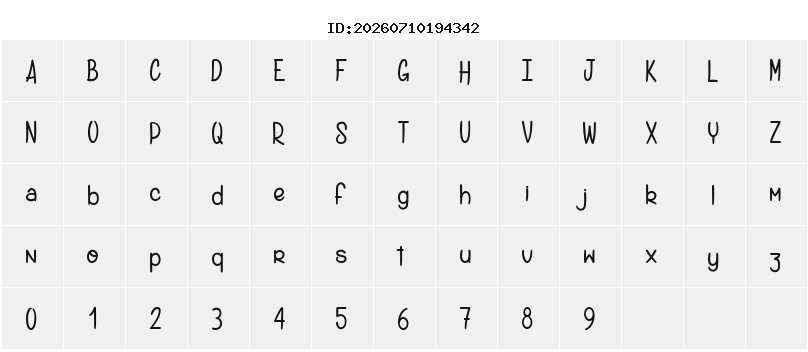
Gants de Soie  Preview
• Font Name: Gants de Soie
• Full Font Name: Gants de Soie
• Designer: dcoxy Medina Gregory
• Manufacturer: dcoxy Medina Gregory
About Gants de Soie .ttf
Gants de Soie .ttf is a modern, elegant sans-serif font designed for ultimate readability and visual harmony. Perfect for branding, headlines, web design, and print materials.